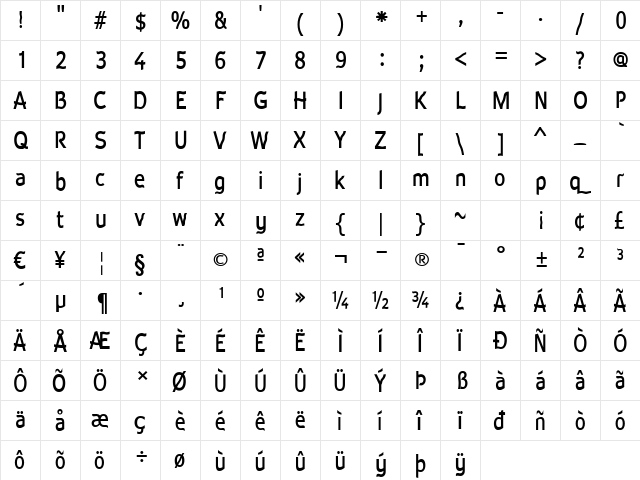
Waverley Bold Regular
Design Context for Waverley Bold Typeface
Waverley Bold takes a measured approach to typography — its balanced proportions and neutral character make it a reliable workhorse for both digital and print work. Its bold stroke weight gives it real presence on the page.